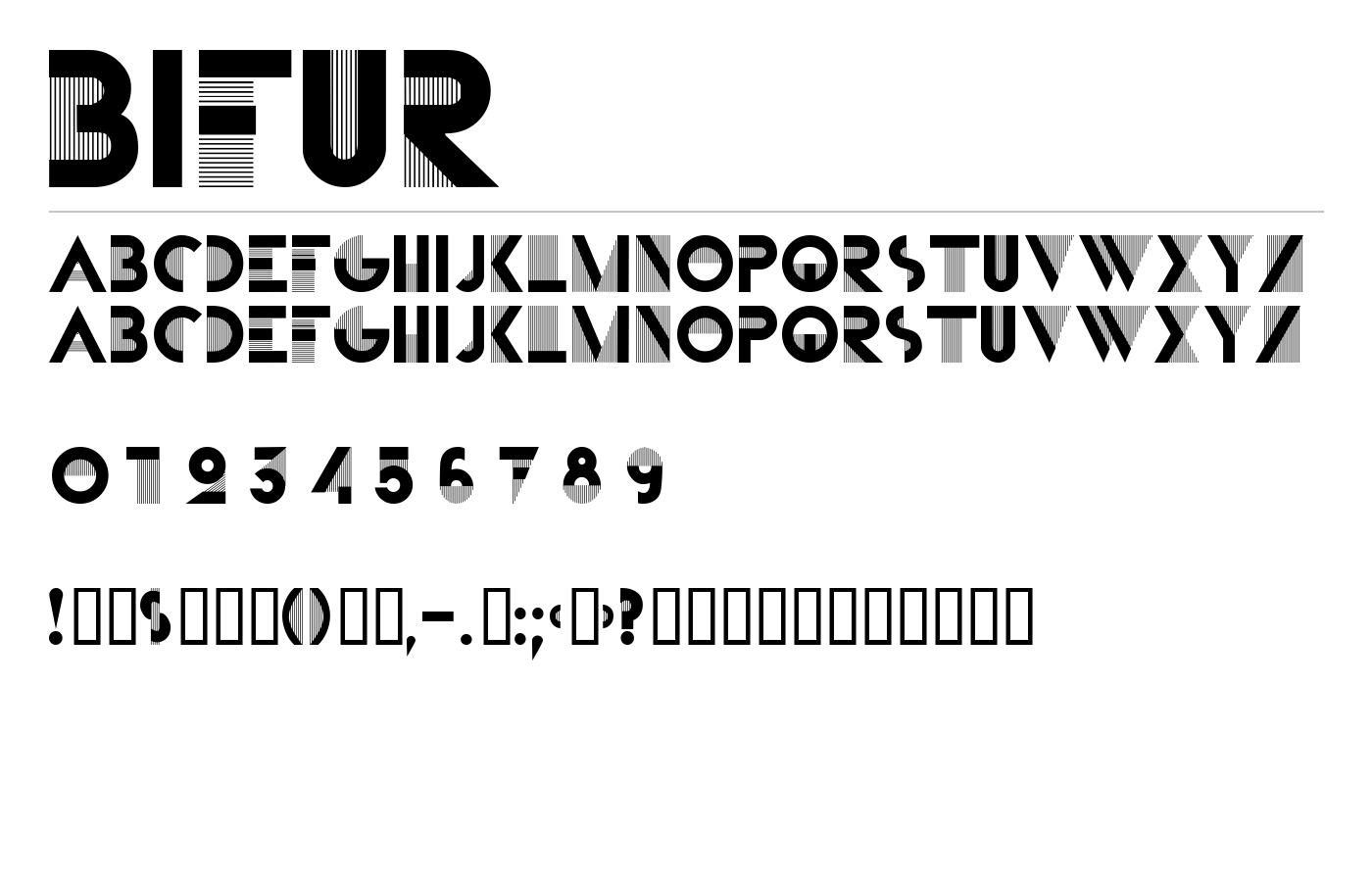
Bifur is a striking Art Deco-inspired display font that combines bold geometric shapes with fine vertical lines to create a unique, eye-catching texture. Its high contrast and stylized letterforms give off a vintage yet modern vibe, making it perfect for luxury branding, posters, and editorial headlines that seek to convey sophistication and artistic flair. This font works best when used sparingly for impactful statements rather than body text due to its decorative and highly stylized nature.
Bifur Font